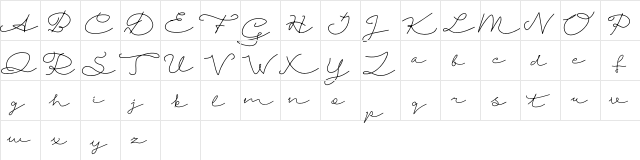
Fruitty Regular
| Designer | Achmad Solikhin - Semarang 2019 |
Design Context for Fruitty Typeface
Fruitty is a composed and adaptable typeface that performs quietly and consistently across a wide range of design contexts.